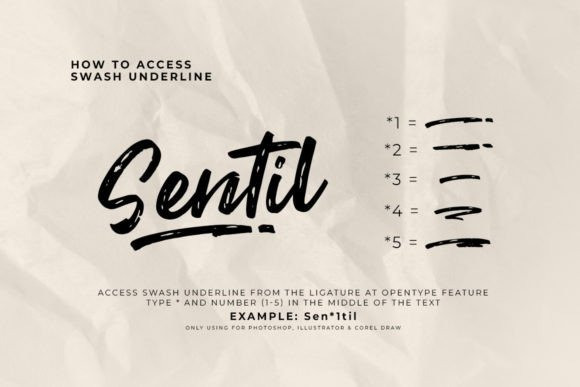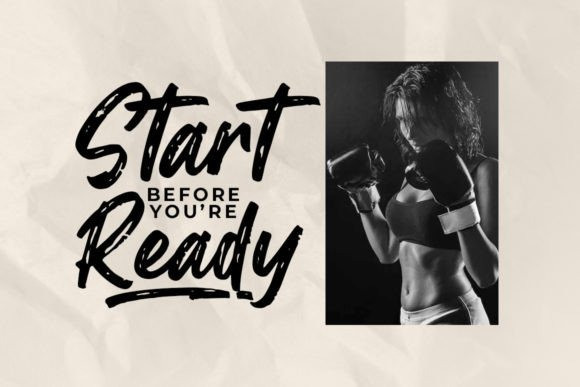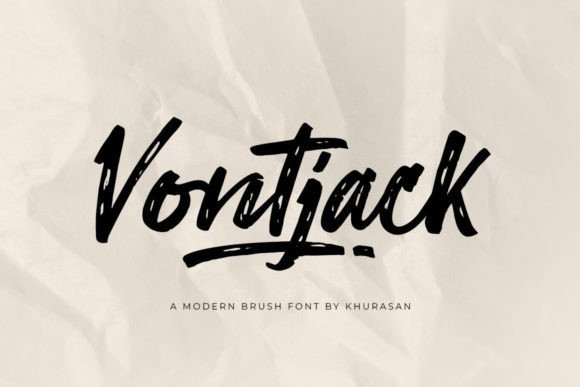
Vontjack Font
Vontjack Font is a modern brush font perfect for posters, logos, magazines, book covers, banners, and many more! Get this amazing font, and use it to create lovely designs. It can easily be matched to an incredibly large set of projects, so add it to your creative ideas and notice how it makes them stand out!